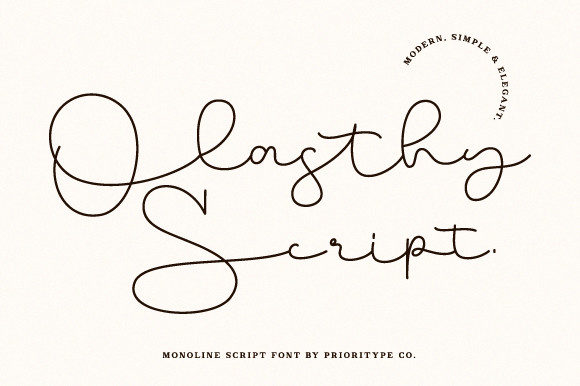
Why Olasthy Script is a Designer's Go-To for Delicate Elegance
Understanding the Sweet, Swashy Character of Olasthy Script
When you first encounter Olasthy Script, its personality is immediately clear. This isn't a bold, attention-demanding typeface; it’s a premium font built on subtlety and grace. As a handwritten font, it mimics the fluid, imperfect motion of a skilled hand holding a brush or fine-nib pen. The defining feature is its collection of sweet, delicate swashes—those elegant, sweeping extensions on certain letters that add a layer of artistic flair without overwhelming the text. The overall style is dainty, approachable, and distinctly feminine, though its versatility allows it to fit into sophisticated branding for anyone seeking a touch of personal warmth.
Think of it as the typographic equivalent of a handwritten note on high-quality paper. It carries the charm of a script font but maintains a level of consistency that makes it functional for modern typography applications. The letterforms are designed to connect naturally, creating a smooth rhythm that guides the eye along the line. This makes Olasthy Script particularly effective for short-form text where emotion and personality are more important than dense information delivery.
Where Olasthy Script Truly Shines: From Branding to Personal Projects
The real-world value of a font like Olasthy Script lies in its application. It’s a specialist, not a generalist, and knowing where it fits best is key to a successful design project. Its elegant, creative font style makes it a natural fit for projects centered on beauty, lifestyle, and personal touch.
For brand identity, consider using it for a boutique bakery, a floral studio, a wedding planner, or a high-end skincare line. It excels in logo design for these brands, especially when paired with a clean sans serif font for body copy. The swashes become a signature element that can be subtly incorporated into other brand assets, creating a cohesive visual language. In packaging design, Olasthy Script can elevate a product label, making it feel artisanal and crafted. Imagine it on a candle jar, a box of chocolates, or a bottle of organic lotion—it instantly communicates care and quality.
Beyond commercial use, it’s a fantastic tool for editorial design and personal creation. Use it for chapter titles in a poetry book, elegant headers on a lifestyle blog, or standout quotes in a magazine layout. For social media graphics, it’s perfect for crafting engaging Instagram stories, quote cards, or Pinterest pins that need a personal, handcrafted feel. Entrepreneurs and content creators can use it to add a signature touch to digital products like planners, invitations, or online course materials, making their offerings feel more bespoke and valuable.
Practical Guidance for Implementing Olasthy Script
Choosing a commercial font is an investment, and applying it thoughtfully is what separates good design from great. Here’s how to work with Olasthy Script effectively.
Evaluate Project Fit First: Before you even download, ask: Does my project need a personal, elegant, and slightly formal touch? If you’re designing a technical manual or a corporate report, this is not your font. It’s built for projects where emotional resonance is a goal.
Master the Font Pairing: This is non-negotiable. Olasthy Script, like most display fonts, is not designed for long paragraphs. Its strength is in headlines, logos, and pull quotes. The smartest approach is to pair it with a highly legible serif font or sans serif font for body text. For example, pair its flowing script with a sturdy, geometric sans serif like Montserrat or a classic serif like Lora. This contrast creates a clear visual hierarchy and ensures your message is both beautiful and readable.
Test for Readability: The swashes that make Olasthy Script beautiful can become a liability at small sizes or in complex contexts. Always test your chosen words in the actual application. Check that letters like ‘b’, ‘h’, and ‘k’ don’t create awkward spacing or visual clutter. At larger sizes, it’s perfectly clear, but for a subheading on a website, you might need to increase the letter-spacing slightly to maintain legibility.
Explore the Full Typeface: A well-designed premium font often comes with more than just basic letters. Check if Olasthy Script includes stylistic alternates, ligatures, or additional swash characters. These extras allow you to customize the look for specific words, making your design assets even more unique and tailored to your specific layout.
In the end, Olasthy Script is more than just a pretty typeface. It’s a strategic tool. Used with intention, it can inject a dose of refined elegance and human touch into web design, print materials, and brand communications, helping your work connect with an audience on a more personal level. Its value is realized not in isolation, but in how thoughtfully it’s integrated into your broader visual story.